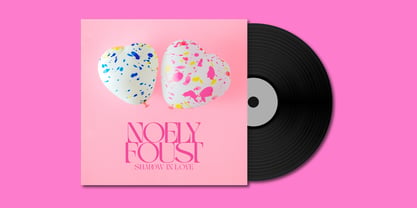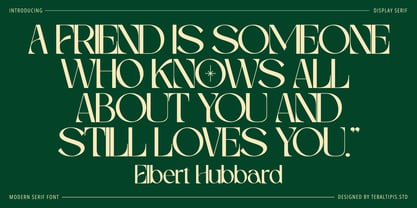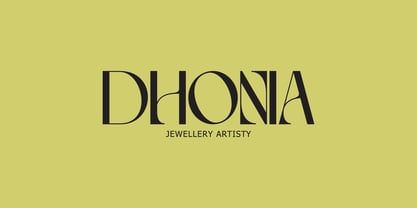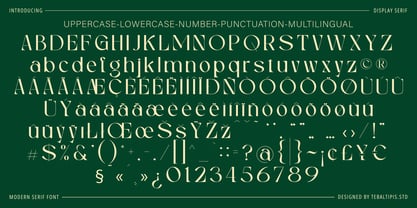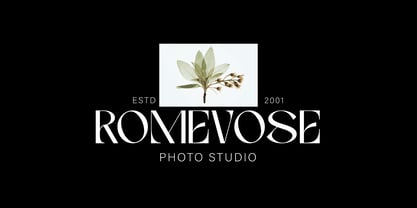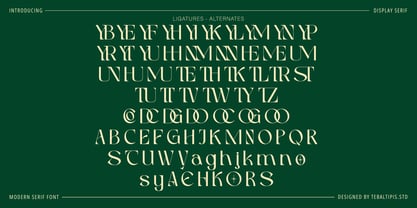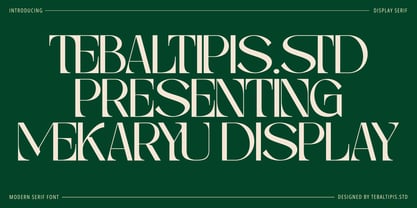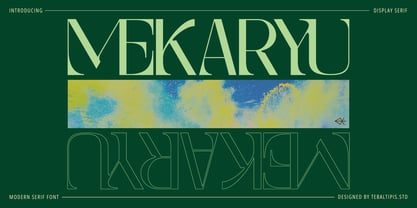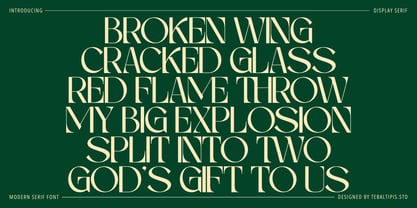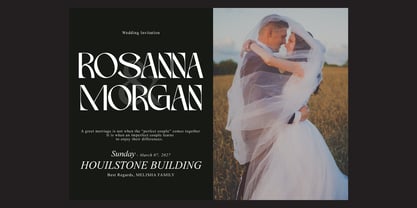
Mekaryu Display Serif
by Tebaltipis Studio
The Mekaryu Display Serif Font Family was designed by Dzulka Elfira and published by Tebaltipis Studio. Mekaryu Display Serif contains 1 styles. More about this family
Mekaryu Display Serif a new fresh & modern serif with a strong style, a dancing baseline! So beautiful on invitation like greeting cards, branding materials, business cards, quotes, posters, and more!
Mekaryu Display Serif is the part of a strong and modern Bold display. This typeface both impressive at display sizes and easily readable in text size, while the sharp shapes of the triangular serif and the distinctive letter shapes show their strength in logo design and impressive editorial use.
Designers: Dzulka Elfira
Foundry: Tebaltipis Studio